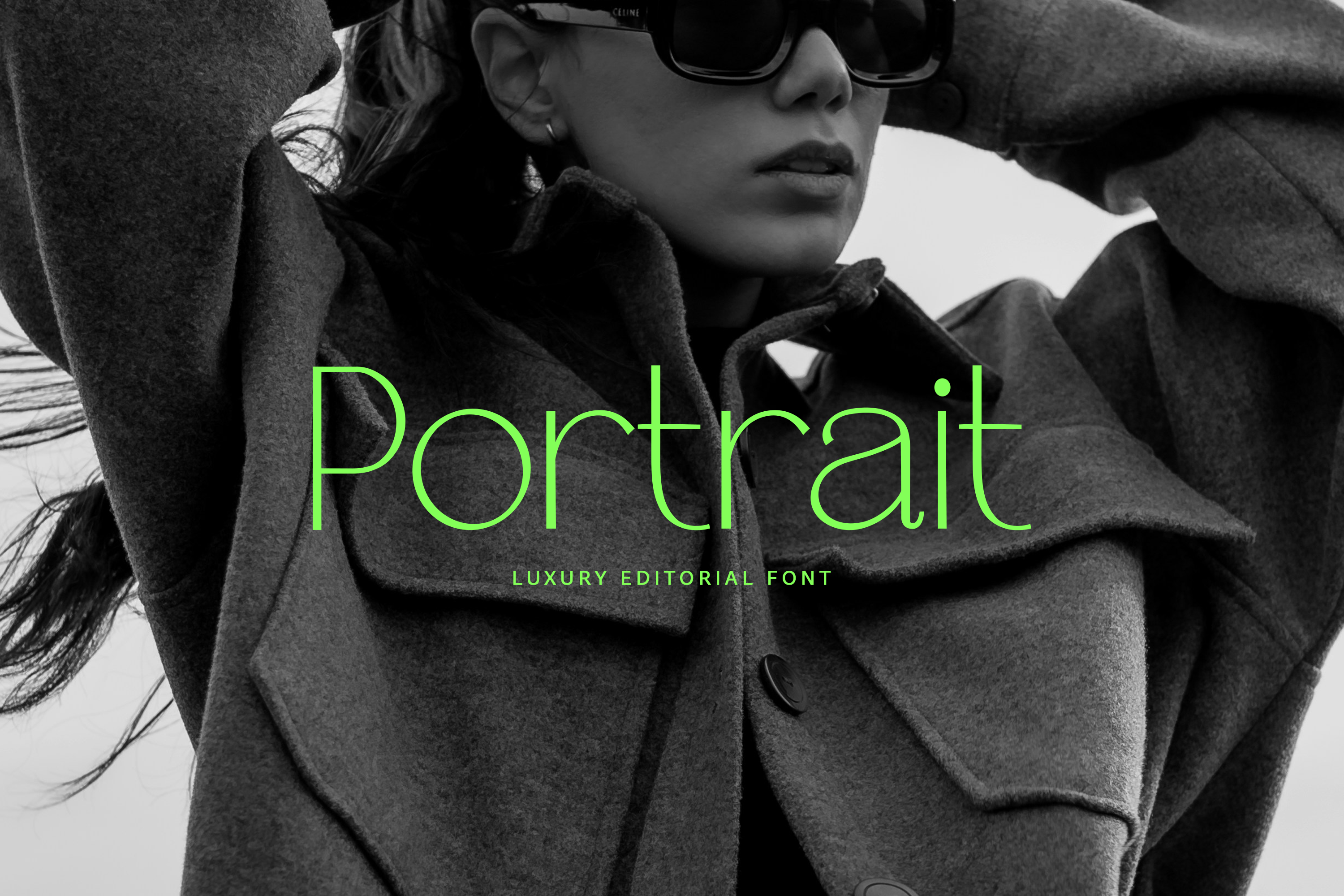
Portrait Font
Portrait is a luxury editorial font designed for fashion branding, magazine layouts, elegant logos, beauty packaging, photography, portfolios, and high-end visual identities.
With its refined thin lines and modern minimalist style, Portrait brings a sophisticated fashion-editorial feeling to any design. Perfect for brands that need a clean, elegant, and premium look.